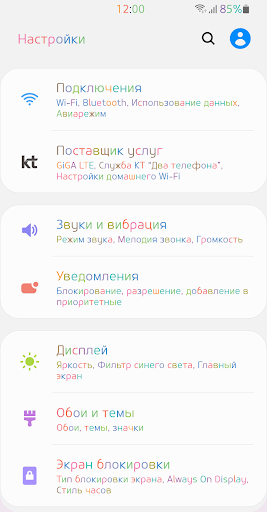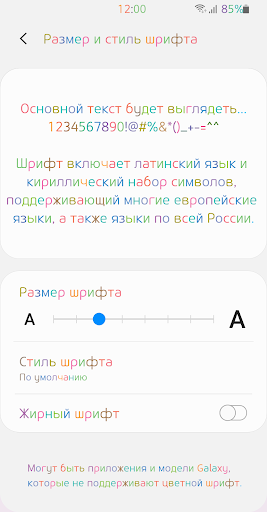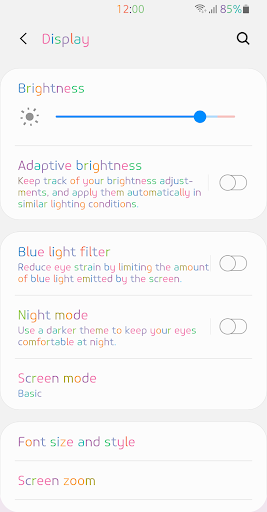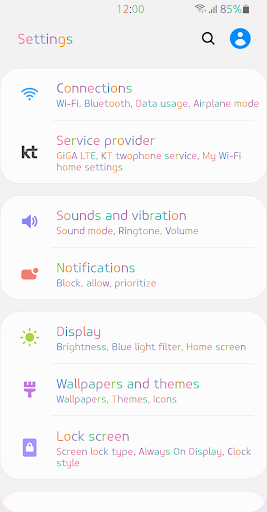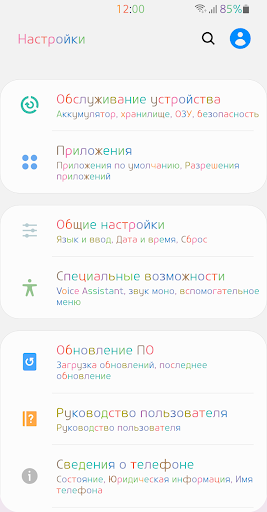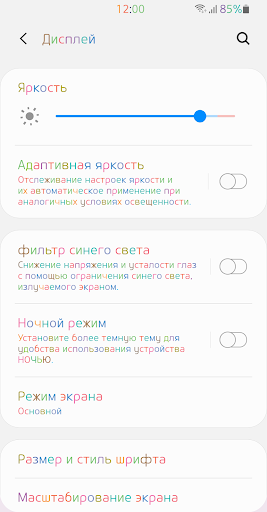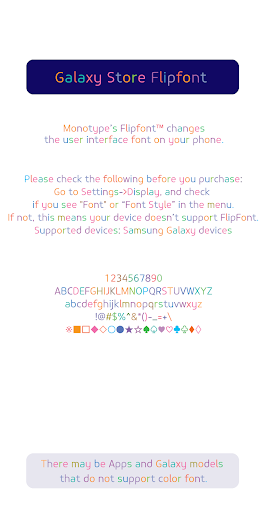
ZF Pastel
The best feature of this font is that it has color.
It is designed to give a feeling of being dyed in pastel tones when writing sentences by applying various color values to each letter instead of one black color.
The result is a more engaging and fun style when encountering text.
The modern shape and round finish show a comfortable and stable flow of writing, and you can feel the warmth and softness of pastel.